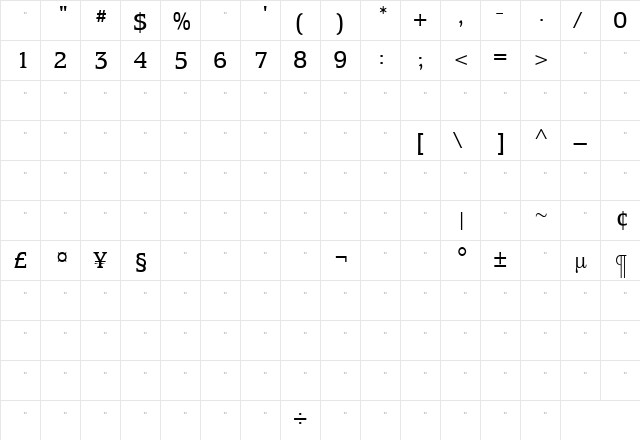
EquestrienneBookTab Roman Font Preview
EquestrienneBookTab Roman
Design Context for EquestrienneBookTab Typeface
EquestrienneBookTab is a composed and adaptable typeface that performs quietly and consistently across a wide range of design contexts.